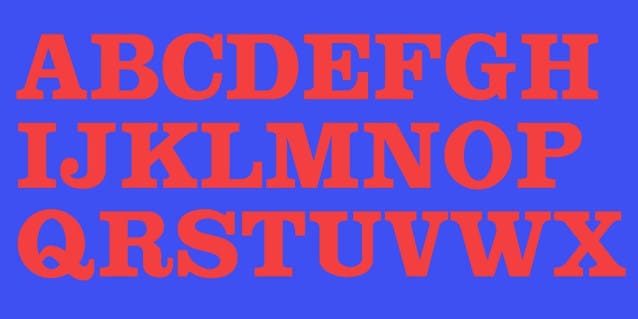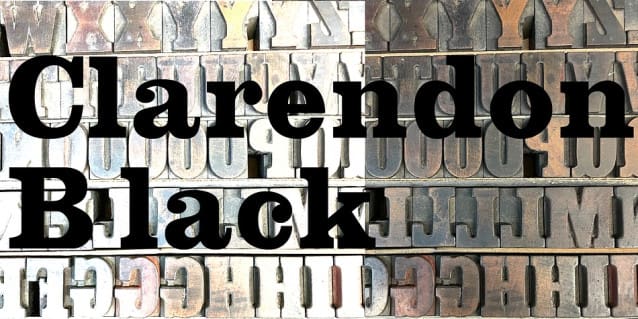
Clarendon Black Font
Clarendon Black Font, is part of Clarendon BT Pro Font. The new Clarendon BT Pro typeface family features 450 glyphs in each font with expanded support for Central and Eastern European languages, and enhanced OpenType features including ligatures, diagonal fractions, superscript/subscripts and Case-Sensitive Forms. Clarendon BT is an updated revival of the square serif (also called Ionic or Egyptienne styles) with bracketed serifs, ball terminals and high xheights. These attributes give Clarendon BT a timeless appearance for a wide range of contemporary uses from websites, ads, publications and signage.